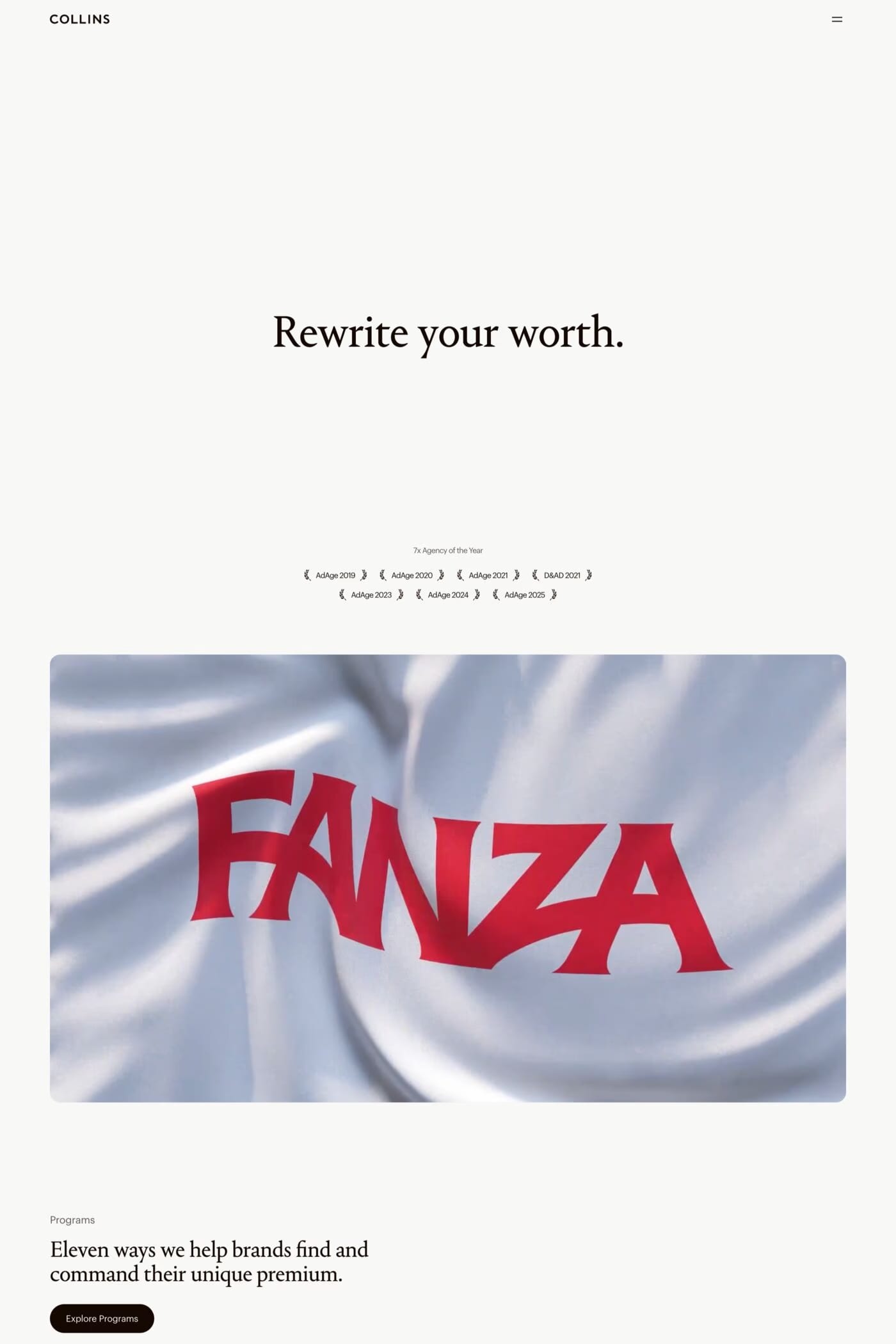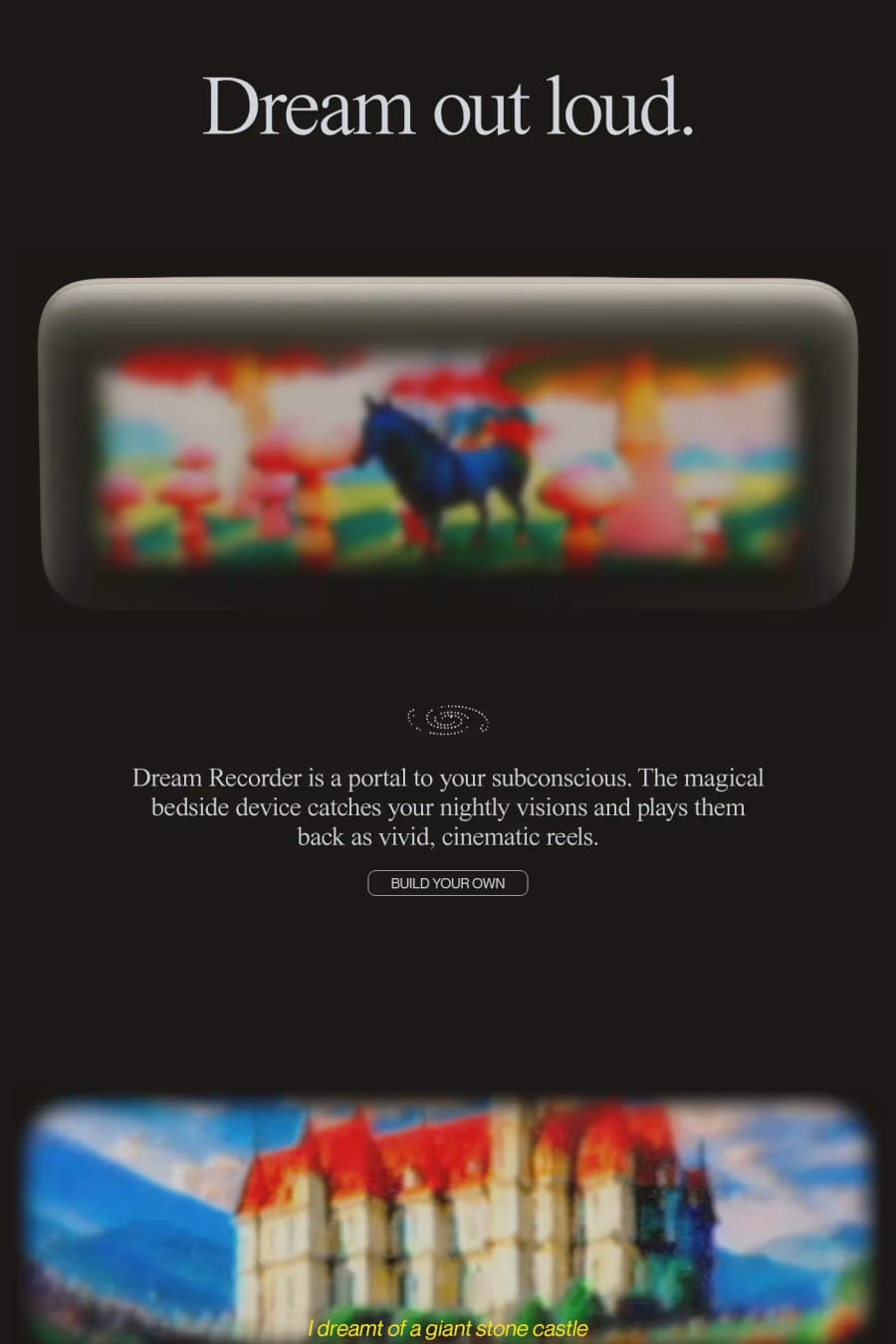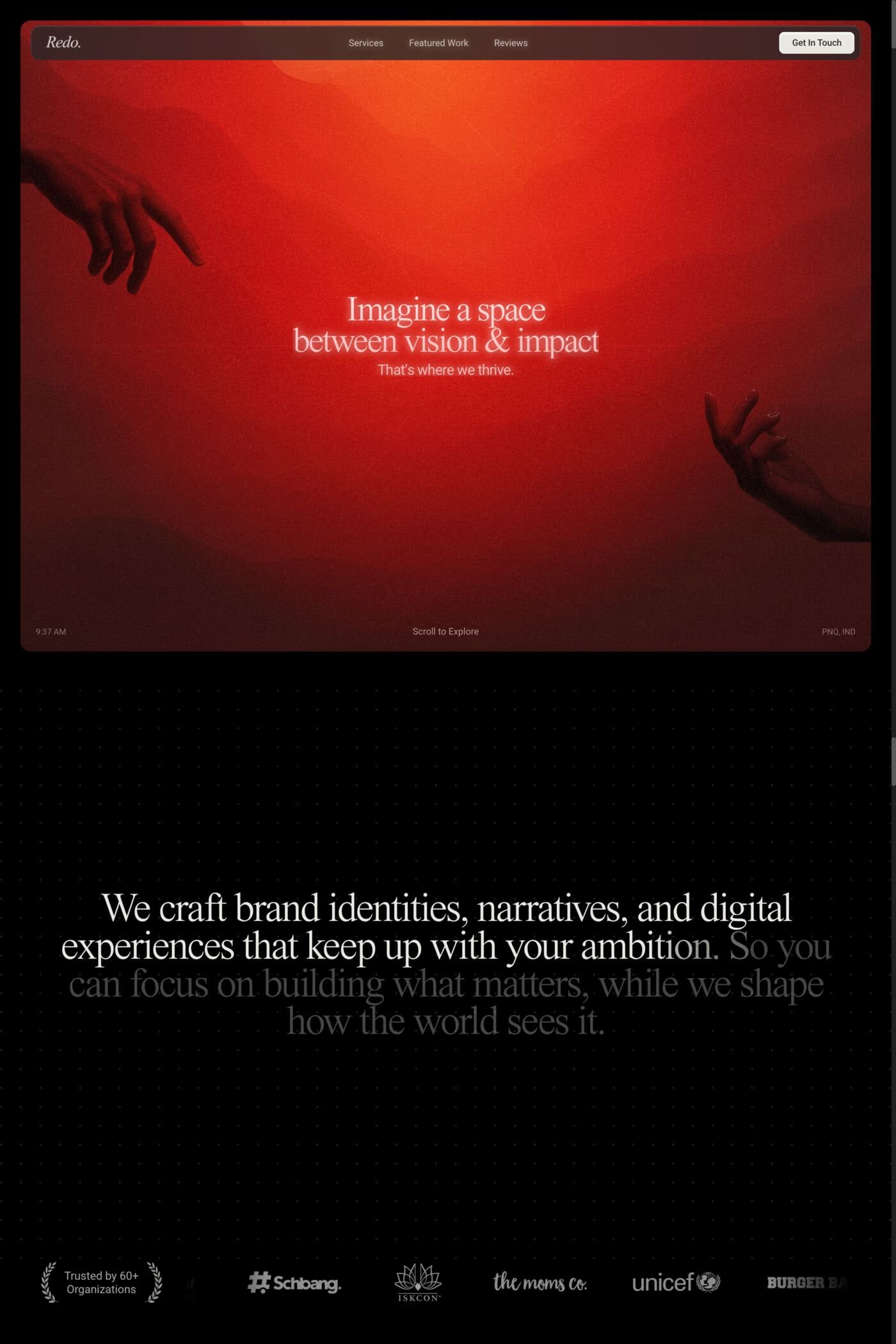
One of the most ubiquitous typefaces nowadays receives a suiting companion. Sumptuously cut “Times Now” brings a rainbow of greyscale to the monitor and paper.